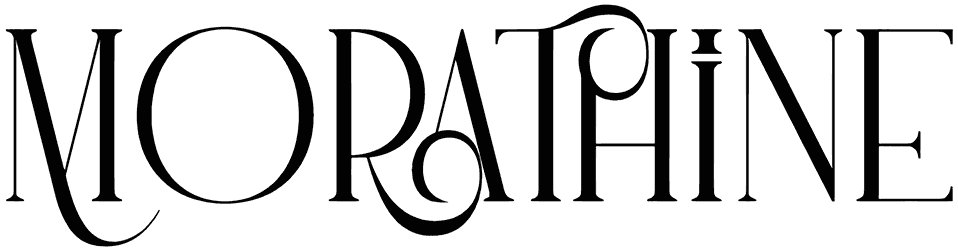
Morathine Font
If you already feel you’re under the spell of Morathine, that’s because it’s a magic font, and that’s how it’s supposed to work. Now that you’ve been lucky enough to find this royal font, take this chance and elevate your texts with its fanciness.
Those tall characters of Morathine with their swashes and ligatures are all that your design is missing if it’s intended to wow everyone. So, they belong to your fantasy book titles and logos for brands of apparel.